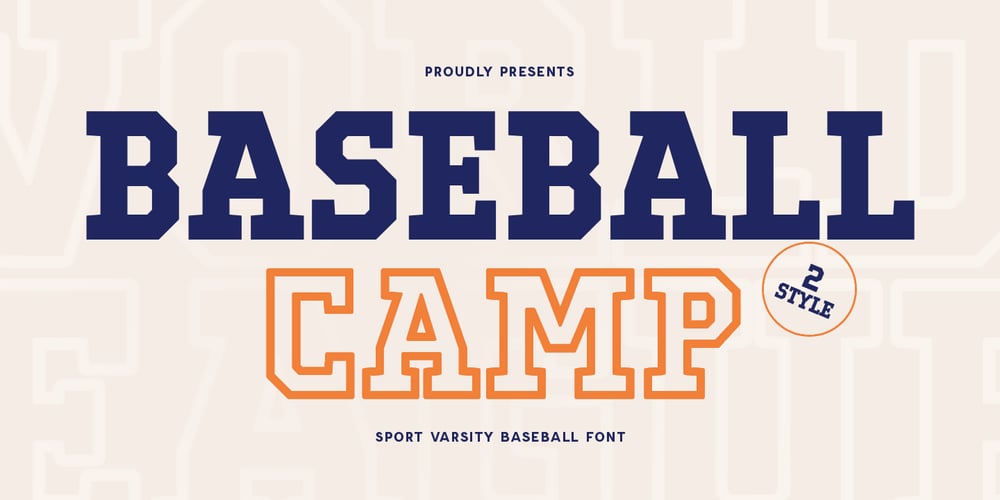
Baseball Camp Font Family was designed by Zamroni Hamzah and published by Sensatype Studio. Baseball Camp contains 2 styles and family package options. Baseball Camp – Sport Varsity Baseball Font Family that we created special for Professional and Modern Headline needs that will give you more Unique look and more efficient in area, with 2 styles in unique shape will be ready to add value of your design. It so nice to leverage designer or product owner that need solutions to make their design look more Professional and modern. And specially for this font, We prepared 2 styles to help you create unlimited variations for your creative needs.Baseball Camp Varsity Baseball Font Family ready with: 2 Styles ready inside 4 format already for each weight Preview as a inspirations that you can do with Baseball Camp font Ready with Lowercase and Uppercase characters Wish you enjoy our font. 🙂